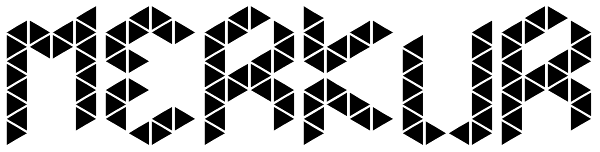
Merkur
I was looking for a font, based on triangles. But the more I was looking for it, the more dissatisfied I became. After several days of searching I decided to solve the problem on my own. A few weeks later Merkur was finished. I hope you enjoy it...